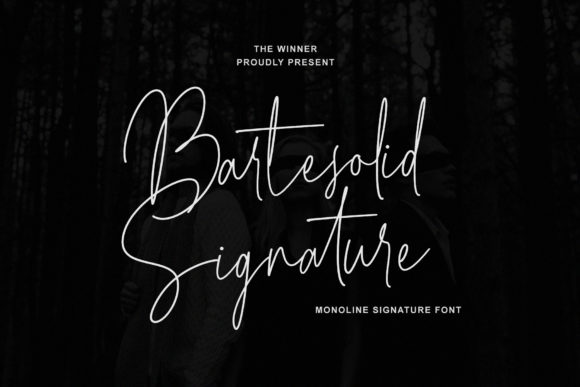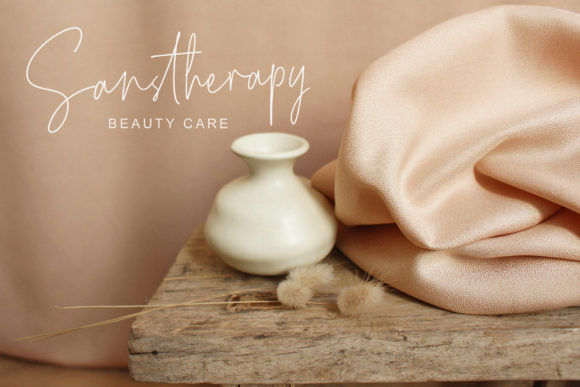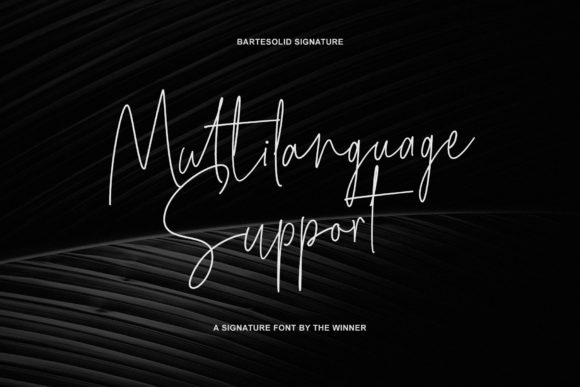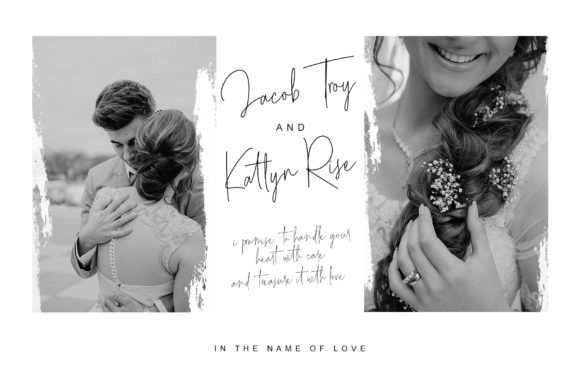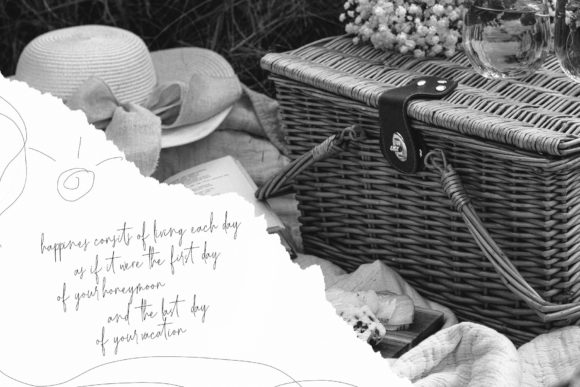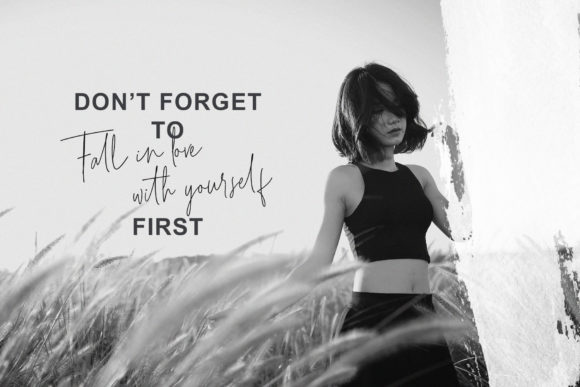
Bartesolid Font: Elevate Your Designs with Elegance and Sophistication
In the world of typography, fonts play a crucial role in conveying the tone and personality of a brand, product, or creative project. For designers and crafters seeking a font that exudes elegance, sophistication, and refinement, Bartesolid is an excellent choice. This thin lettered and delicate script font has gained popularity for its versatility and aesthetic appeal, making it perfect for a wide range of applications, from branding and product packaging to invitations, quotes, t-shirts, labels, posters, and logo development.
What is Bartesolid Font?
Bartesolid is a beautifully crafted script font characterized by its thin, delicate lines and elegant flow. Its refined appearance makes it an ideal choice for designers who want to add a touch of sophistication to their creations. Whether you’re working on a luxury brand, a wedding invitation, or a fashion label, Bartesolid’s unique charm can elevate your design to the next level.
Key Features of Bartesolid Font
- Thin Lettered and Delicate: Bartesolid’s most distinctive feature is its thin, delicate lettering, which gives it a refined and elegant appearance.
- Script Font: As a script font, Bartesolid offers a fluid, connected writing style that adds a personal touch to any design.
- Versatile: Its versatility makes Bartesolid suitable for a wide range of applications, from digital designs to print materials.
- Elegant and Sophisticated: The font’s elegant and sophisticated look makes it perfect for luxury brands, high-end products, and creative projects that require a refined aesthetic.
Use Cases for Bartesolid Font
Bartesolid’s versatility and aesthetic appeal make it suitable for various design projects, including:
- Branding: Establish a sophisticated brand identity with Bartesolid, perfect for luxury brands, fashion labels, and high-end products.
- Product Packaging: Elevate your product packaging with a font that exudes elegance and refinement.
- Invitations: Create stunning invitations for weddings, events, and parties with Bartesolid’s elegant script.
- Quotes and Posters: Use Bartesolid to create inspiring quotes, posters, and prints that make a lasting impression.
- T-Shirts and Apparel: Add a touch of sophistication to your t-shirt and apparel designs with Bartesolid’s unique style.
- Labels and Stickers: Create eye-catching labels and stickers for products, gifts, or promotional materials.
- Logo Development: Use Bartesolid as a base font for logo development, perfect for businesses and brands seeking a sophisticated identity.
Why Choose Bartesolid Font?
With so many fonts available, why choose Bartesolid? Here are a few compelling reasons:
- Unique Style: Bartesolid offers a distinctive style that sets it apart from other fonts, making it perfect for designers seeking something new and exciting.
- Elegance and Sophistication: The font’s elegant and sophisticated look makes it ideal for high-end designs and luxury brands.
- Versatility: Bartesolid’s versatility ensures it can be used across various design projects, from digital to print.
- Easy to Read: Despite its delicate nature, Bartesolid remains easy to read, making it functional as well as beautiful.
Bartesolid font is a beautiful, elegant, and sophisticated script font perfect for designers and crafters seeking to elevate their designs. Its thin lettered and delicate lines make it suitable for a wide range of applications, from branding and product packaging to invitations, quotes, t-shirts, labels, posters, and logo development. With its unique style, versatility, and aesthetic appeal, Bartesolid is an excellent choice for anyone looking to add a touch of refinement and elegance to their creative projects.